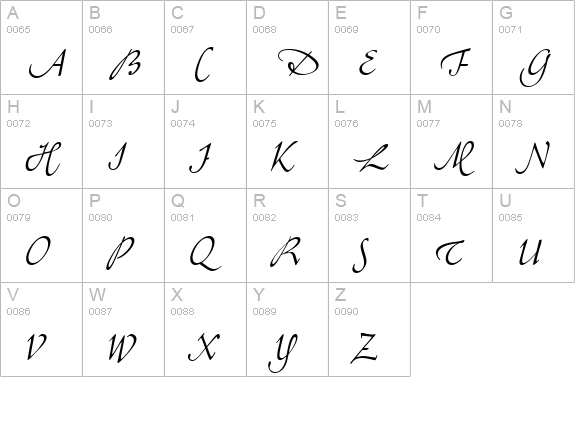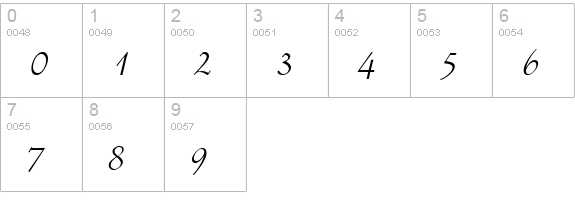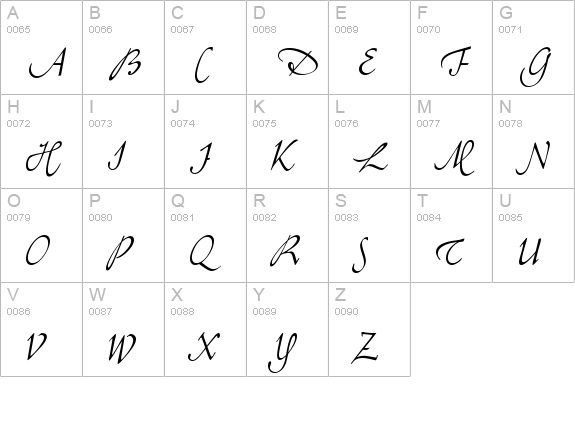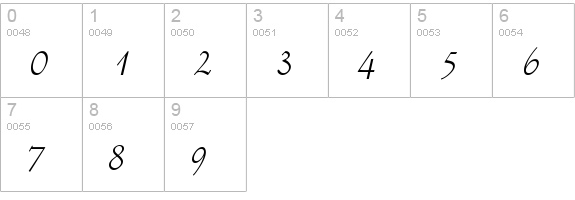
A770-Roman-Swash-Regular Font Details
A770-Roman-Swash-Regular is the standard, neutral variant in the A770 typeface family \xE2\x80\x94 well suited to general body text, paragraphs, and standard typographic work.
A770 Roman Swash Regular font is a beautiful and elegant typeface that exudes sophistication and charm. The intricate swashes and ornate details of this font give it a timeless and classic feel, making it perfect for projects that require a touch of luxury. This font features clean lines and carefully crafted curves, creating a harmonious balance between traditional Roman letterforms and stylish swashes. Whether you're designing invitations, logos, or branding materials, A770 Roman Swash Regular font will add a touch of refinement to your work. Best of all, this exquisite font is available for free download at FontsMarket.com. Simply visit the website to access this stunning typeface and elevate your designs with its timeless appeal. Don't miss out on the opportunity to add A770 Roman Swash Regular font to your font library today!